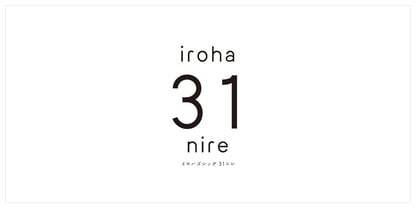
iroha 31nire StdN
by Kinuta Font Factory
The iroha 31nire StdN Font Family was designed by and published by Kinuta Font Factory. iroha 31nire StdN contains 1 styles. More about this family
The kana characters in iroha 31nire are based on the Marumei Old Gothic style. The design is compact and pretty with a brush script look. iroha Kanji characters are common. It is a simple design with straight lines in mind. There are 12 kana in total.